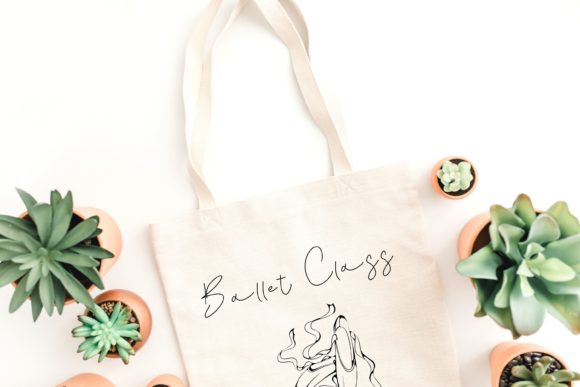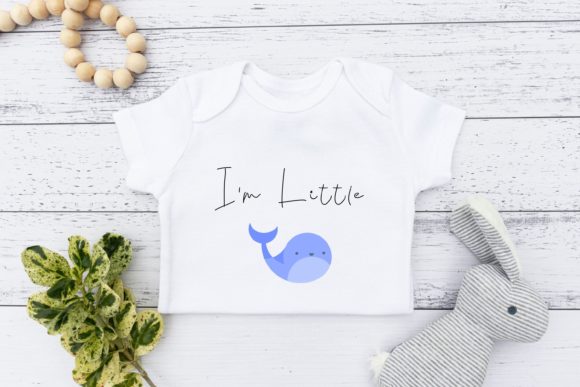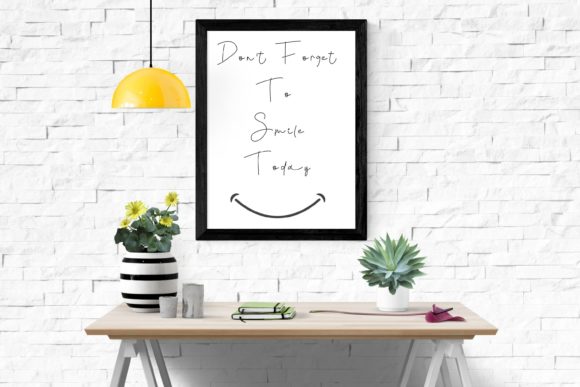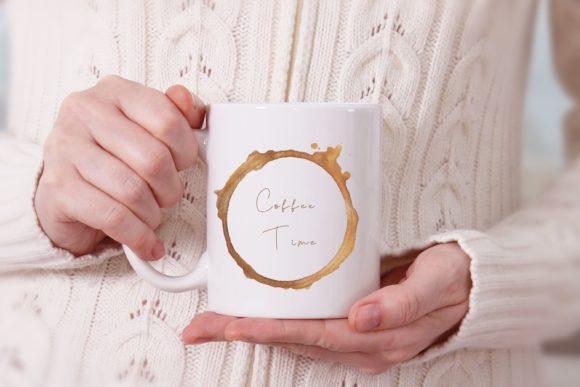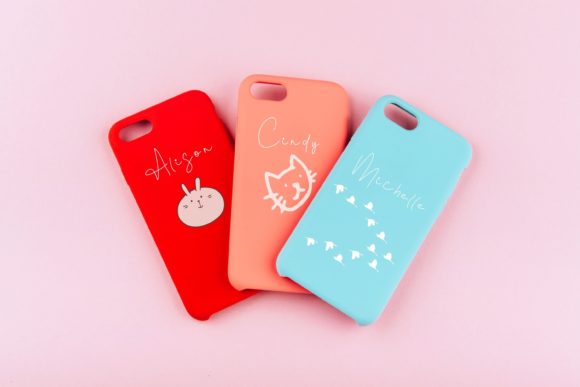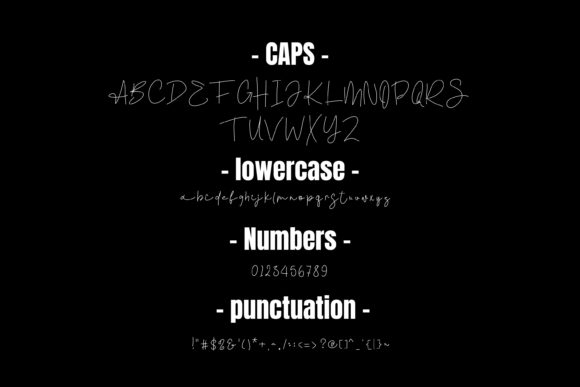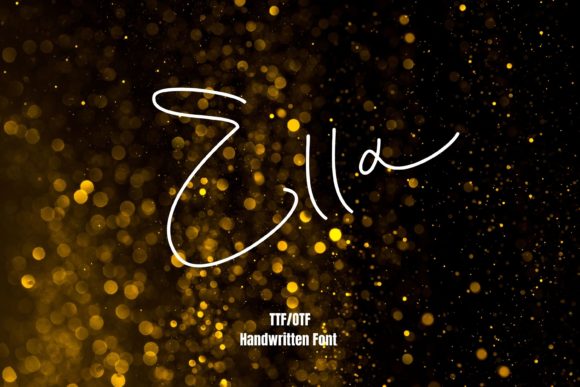
Ella Font: Elevate Your Designs with a Relaxed and Stylish Script Font
Are you tired of using the same old fonts in your designs? Do you want to add a touch of elegance and uniqueness to your creations? Look no further than Ella Font, a beautiful and relaxed script font that’s perfect for designers and crafters alike. In this article, we’ll take a closer look at Ella Font, its features, and how you can use it to take your designs to the next level.
What is Ella Font?
Ella Font is a stylish and modern script font that’s designed to add a touch of sophistication to your designs. With its slim and elegant lines, Ella Font is perfect for creating beautiful and eye-catching text-based designs. Whether you’re working on a logo, a poster, or a social media graphic, Ella Font is sure to make your designs stand out.
Key Features of Ella Font
So, what makes Ella Font so special? Here are just a few of its key features:
- Relaxed and Stylish: Ella Font has a relaxed and stylish vibe that’s perfect for creating designs that are both elegant and modern.
- Slim Lines: The font’s slim lines make it perfect for creating designs that are clean and sophisticated.
- Unique Vibe: With Ella Font, you can add a unique and elegant vibe to your designs that will set them apart from the rest.
- Easy to Read: Despite its slim lines, Ella Font is easy to read, making it perfect for body text and headlines.
How to Use Ella Font in Your Designs
Now that we’ve covered the features of Ella Font, let’s take a look at how you can use it in your designs. Here are a few ideas to get you started:
- Logos: Use Ella Font to create a beautiful and elegant logo for your business or brand.
- Posters: Add a touch of sophistication to your posters with Ella Font.
- Social Media Graphics: Use Ella Font to create eye-catching social media graphics that will help your brand stand out.
- Invitations: Create beautiful and elegant invitations with Ella Font.
Tips for Getting the Most Out of Ella Font
Here are a few tips for getting the most out of Ella Font:
- Use it Sparingly: Because Ella Font is so elegant, it’s best to use it sparingly. Use it for headlines and titles, and a simpler font for body text.
- Experiment with Colors: Ella Font looks great in a variety of colors, so don’t be afraid to experiment and find the perfect color for your design.
- Pair it with Other Fonts: Ella Font pairs well with a variety of other fonts, so try pairing it with a simpler font for a beautiful contrast.
Ella Font is a beautiful and elegant script font that’s perfect for designers and crafters alike. With its slim lines and relaxed vibe, Ella Font is sure to add a touch of sophistication to your designs. Whether you’re working on a logo, a poster, or a social media graphic, Ella Font is a great choice. So why not give it a try and see how it can elevate your designs?
In conclusion, Ella Font is a must-have font for any designer or crafter looking to add a touch of elegance and uniqueness to their designs. Its key features, including its relaxed and stylish vibe, slim lines, and unique vibe, make it perfect for creating beautiful and eye-catching text-based designs. By following the tips outlined in this article, you can get the most out of Ella Font and take your designs to the next level.